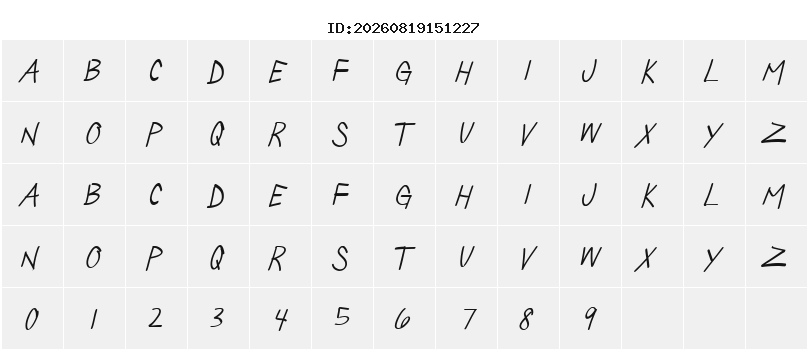
• Font Name: Silly Games Thin
• Font Style: Thin Italic
• Full Font Name: Silly Games Thin Italic
• Designer: Font Monger
• Description: Silly Games Thin Italic is a font by Font Monger, designed by Font Monger in 2015.
Silly Games Thin.ttf is a modern, elegant sans-serif font designed for ultimate readability and visual harmony. Perfect for branding, headlines, web design, and print materials.